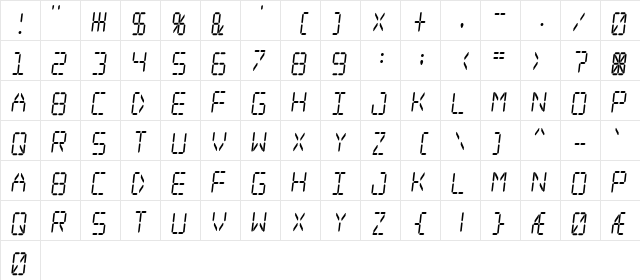
Digital dream Skew Narrow Regular Free Font
Digital dream Skew Narrow Regular
Design Context for Digital dream Skew Narrow
Digital dream Skew Narrow has a distinctly futuristic character, with geometric precision and clean angles that feel at home in technology, gaming, and sci-fi contexts. Its narrow stance lets it pack a punch even in space-constrained designs.
Pro Tip: Try Digital dream Skew Narrow with generous letter-spacing in UI labels and navigation - the geometric forms benefit from room to breathe.